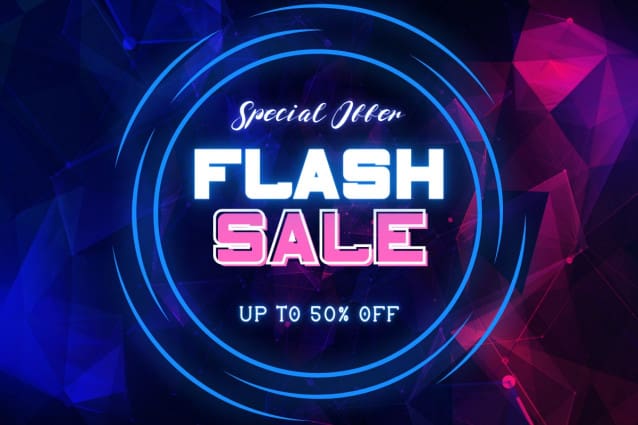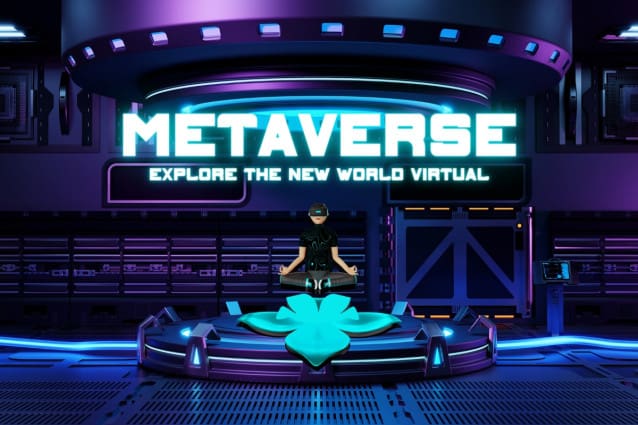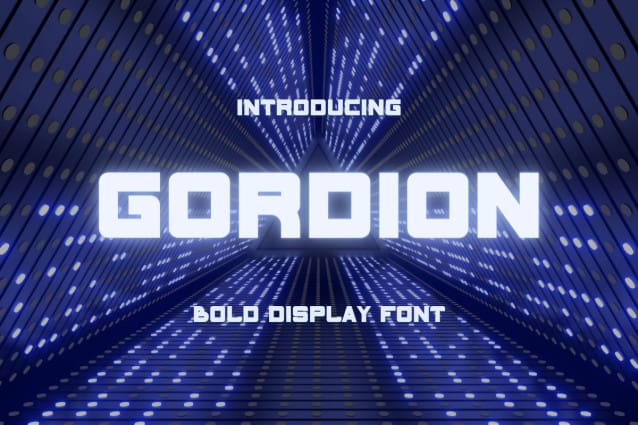
Gordion Font
Gordion Font is a Bold Modern Display font that will make your designs look unique and fun. It’s perfect for labels, quotes, posters, DIY projects, branding, packaging, greeting cards, websites, photography overlays, signs, window art, scrapbooking, tags and so much more!